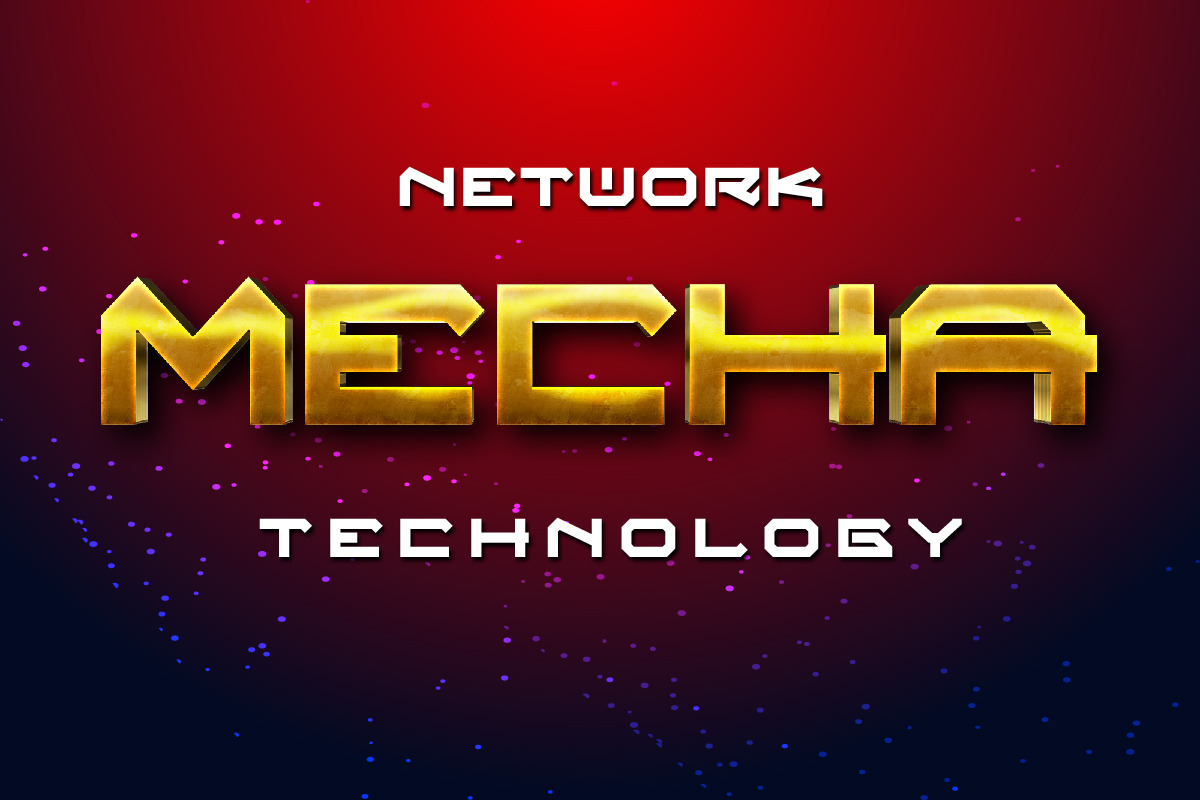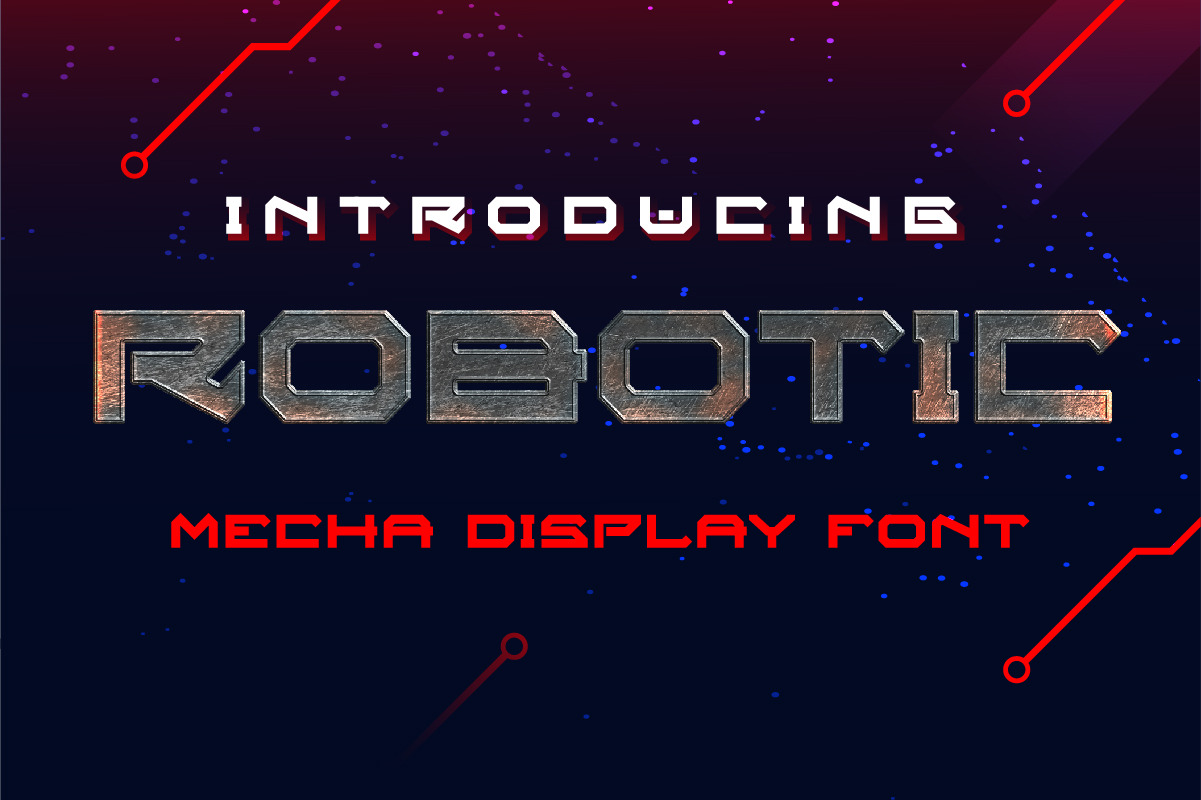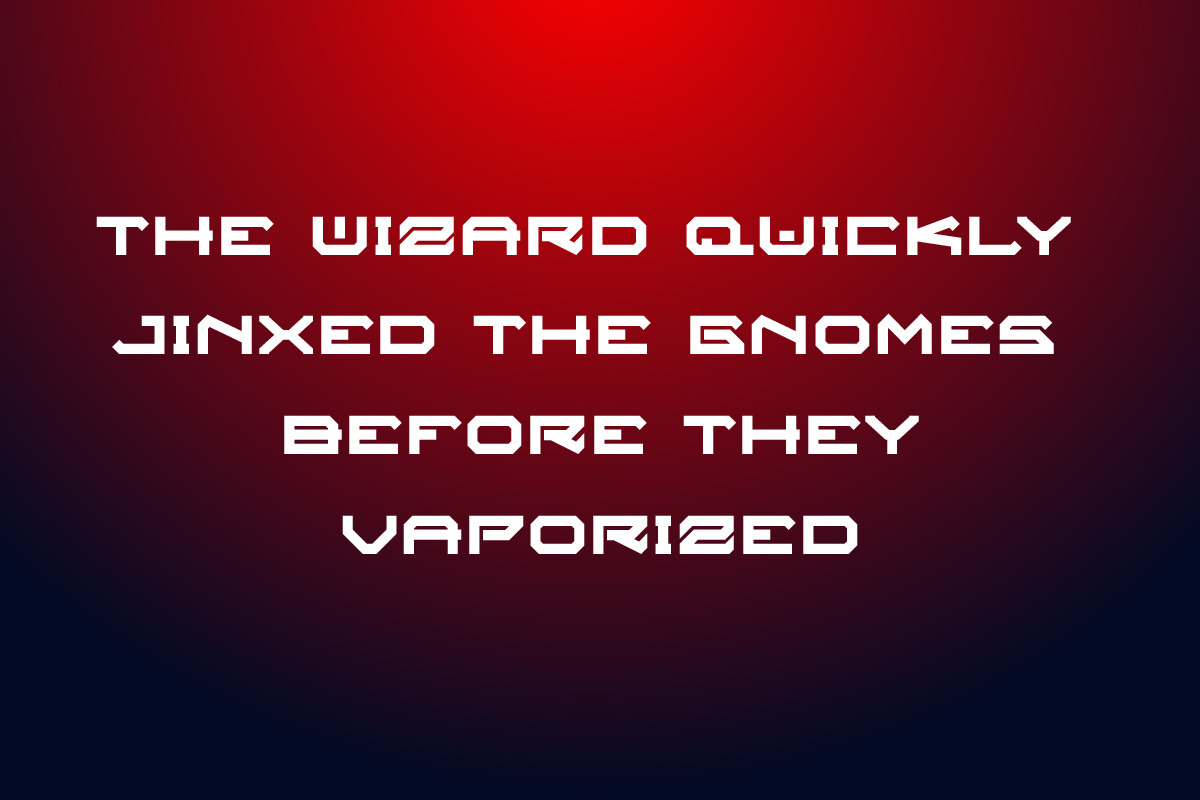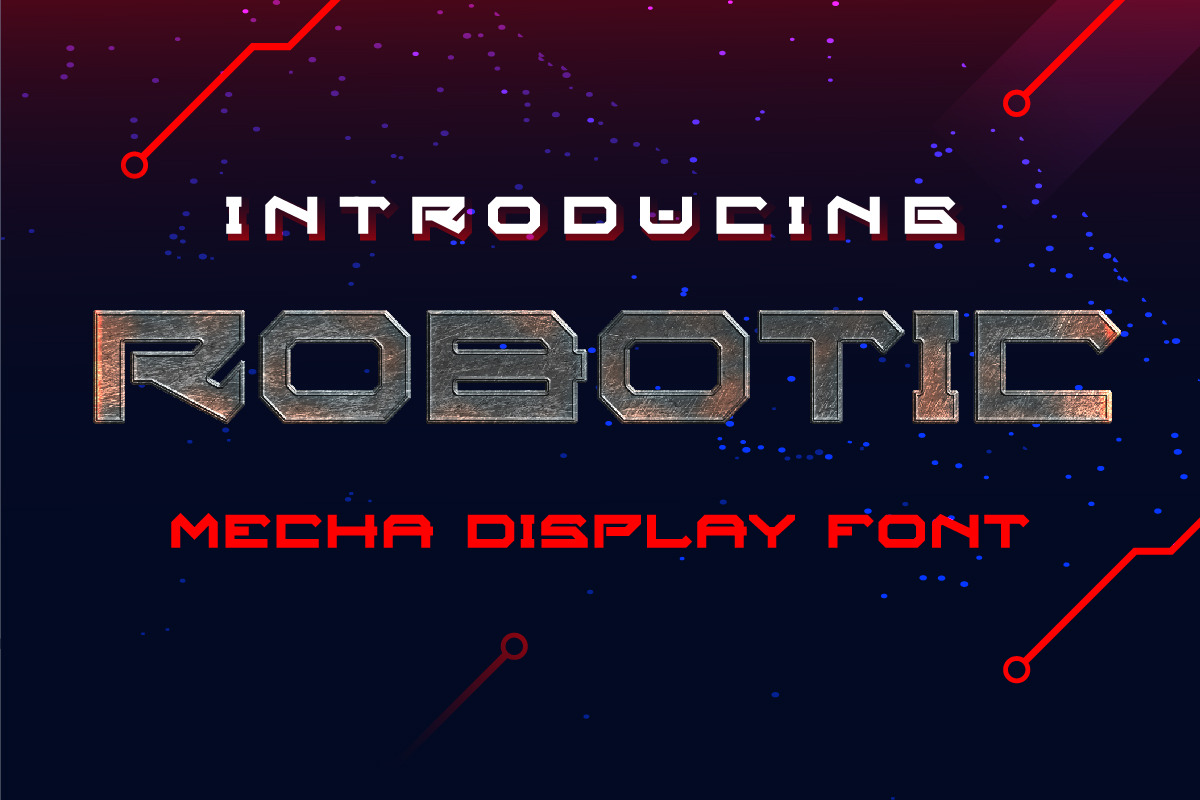
Robotic Mecha Display Font
ROBOTIC font is our new item that suitable for your Gaming logo or community logo.
Great for Logo, Sticker, Jersey, Invitation Card, Brochure, etc.